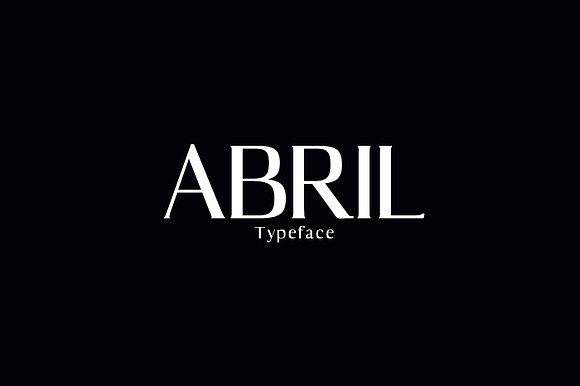
Abril Serif Font Family Pack
This elegant typeface is perfect for magazine headlines, newspaper mastheads, editorial design, book publishing, literary journals, cultural publications, academic texts, premium branding, and sophisticated print applications.
What makes this font exciting is its editorial excellence combined with typographic sophistication, offering designers a distinguished typeface that captures the essence of quality journalism while delivering exceptional readability and timeless publishing elegance.
The Abril Serif font family includes light, regular, medium, semibold, bold, black, and display variations, providing complete editorial design solutions for creating authoritative publishing visual identities.
Whether you're developing prestigious publishing brands or crafting editorial design systems, Abril Serif Font Family Pack Free Download brings exceptional journalistic atmosphere and editorial authenticity to every application. This distinguished typeface combines traditional newspaper typography with contemporary publishing standards, creating letterforms that command respect and enhance reading comprehension. The font's editorial construction and publishing-ready details make it perfect for organizations seeking immediate journalistic recognition.
Abril Serif Font Family Pack features carefully crafted editorial styling with authentic publishing character that conveys genuine journalistic expertise. Each weight has been optimized for different editorial functions, with precisely balanced proportions and refined serif details that enhance the sophisticated aesthetic. The font's journalistic qualities make it particularly effective for media companies and academic applications.
Professional designers choose Abril Serif Font Family Pack for projects requiring authentic editorial credibility and publishing atmosphere. Its journalistic heritage makes it exceptionally well-suited for newspapers, magazines, and educational institutions. The font's versatile weight system allows designers to create sophisticated editorial hierarchies, from subtle body text elegance to bold headline authority.
The complete Abril Serif Font Family Pack package offers extensive editorial character sets and advanced OpenType features that enhance the publishing aesthetic. Advanced typography controls allow designers to create complex editorial effects with multiple weight combinations. This comprehensive publishing toolkit ensures designers have everything needed to create authoritative editorial communications that celebrate the enduring power of quality journalism and intellectual discourse.